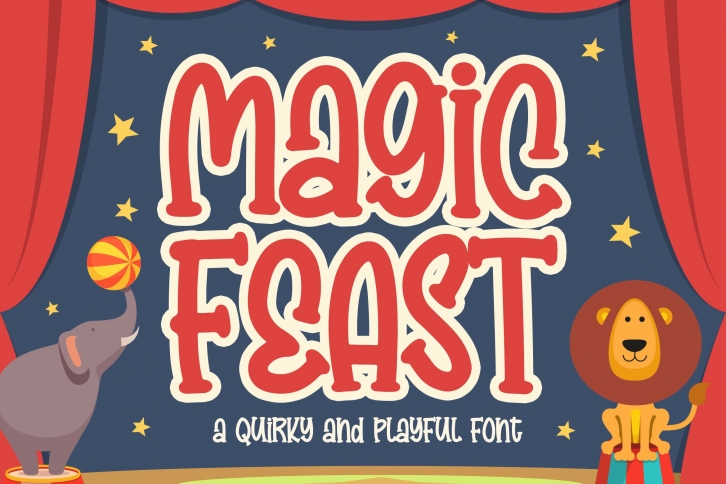
Magic Feast a Quirky and Playful is a beautiful font that was designed by Blankids. It's a great choice for designers and creatives who need such a font. It was released on August 6, 2021 and the file size is 14.98 MB. Magic Feast a Quirky and Playful may give a more youthful, expressive and casual look to your project. It is a very beautiful, refined, elegant, and high-quality font.